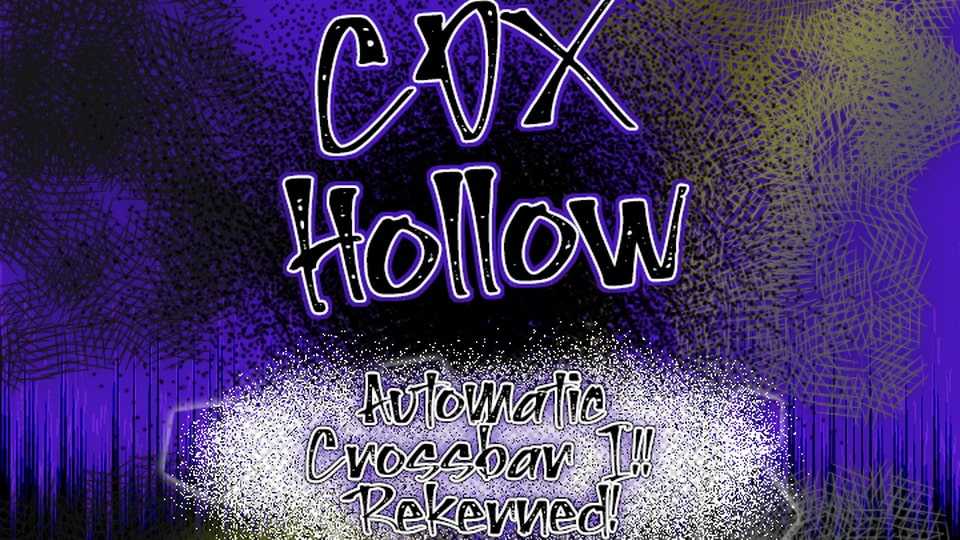
CDX Hollow Font › Fontesk – Download Grátis
Download CDX Hollow font, a dynamic and energetic hand painted typeface made using a popular Clip Studio Paint brush often used by artists.